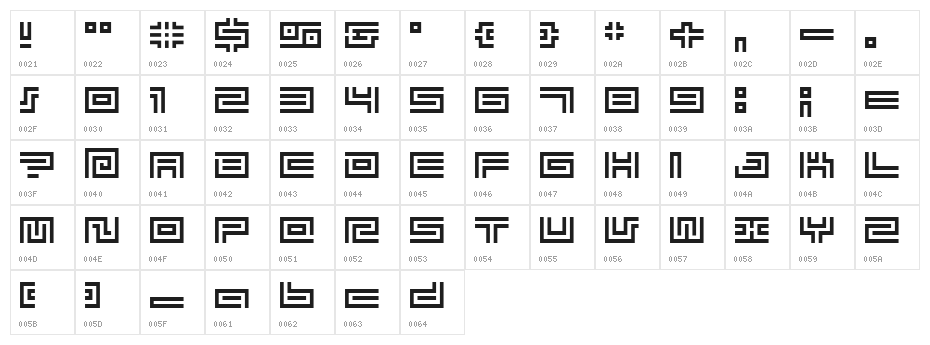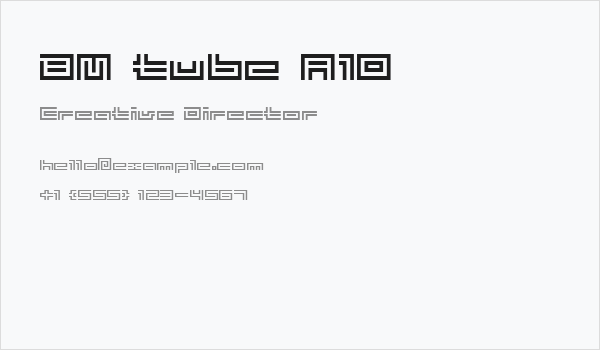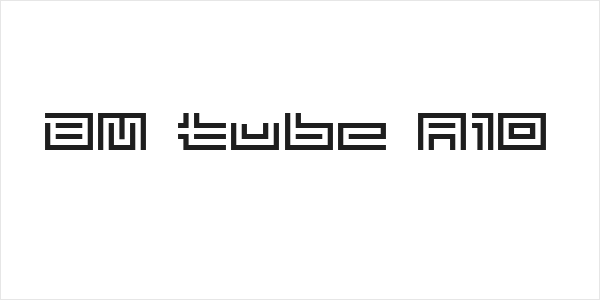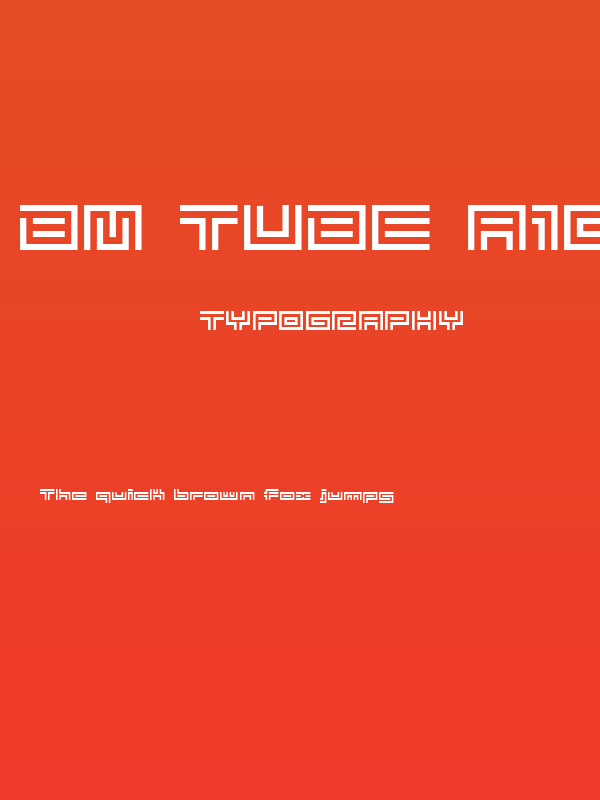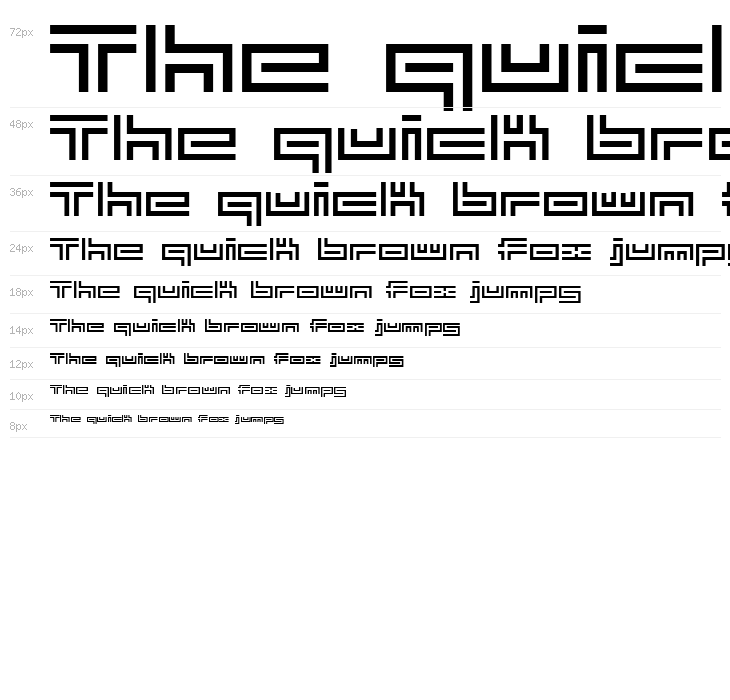
BM tube A10 Font
BM tube A10 Description
This font features a geometric and futuristic design, characterized by its bold, block-like structure. Each character is composed of thick, uniform lines that create a sense of symmetry and balance. The uppercase and lowercase letters maintain a consistent height, contributing to a cohesive appearance. The numerals and special characters follow the same design principles, ensuring uniformity across all glyphs. The font's unique style makes it stand out, with a modern and tech-inspired aesthetic that is both eye-catching and functional.
| Proposed Projects | Ideal for technology branding, sci-fi themed projects, video game interfaces, and modern poster designs. |